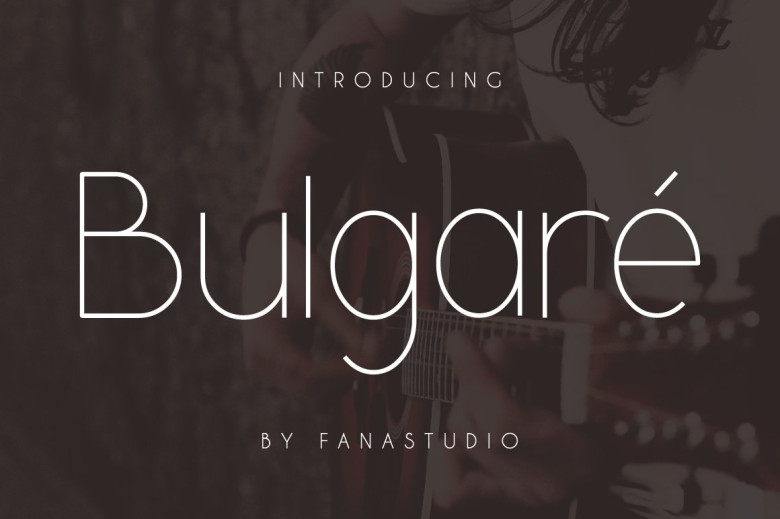
Bulgare Sans Font
Introducing Bulgare Typeface. Bulgare is Our latest product inspired by the famous logo is simple but classy, made with precision and measured. very good for combining your design work with a clear line and a circle with several different weights that are very comfortable in the design area you are easy to read and as a title on a blog or magazine page. Bulgare has symbols and punctuation and perfect for logos & branding, photography, invitation, watermark, advertisements,product designs, stationery, wedding designs,label ,product packaging.